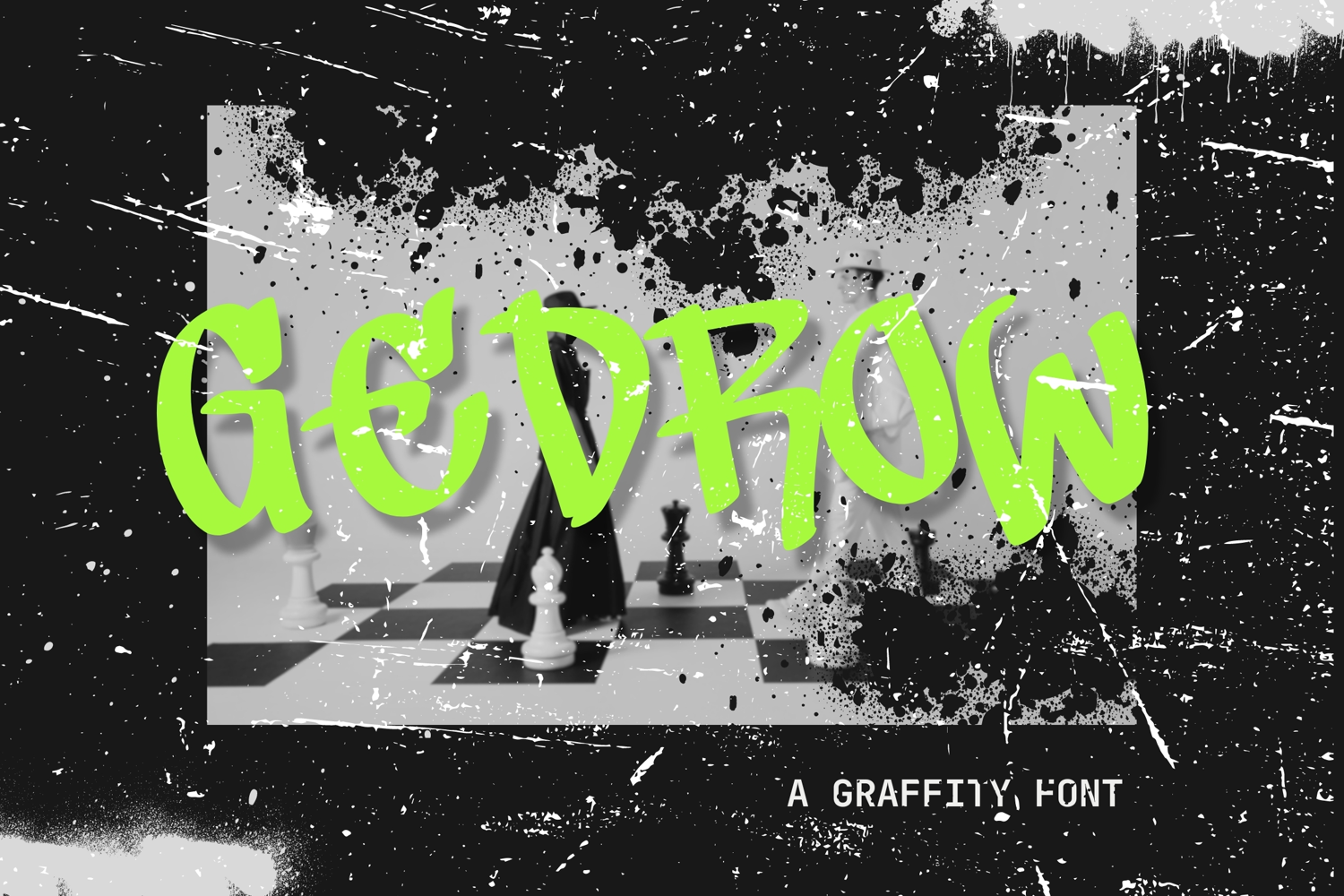
Gedrow
Gedrow - Graffity Font
Introducing our new Gedrow, a Graffity font this is perfect for branding, logos, invitation, magazines, product packaging and more.